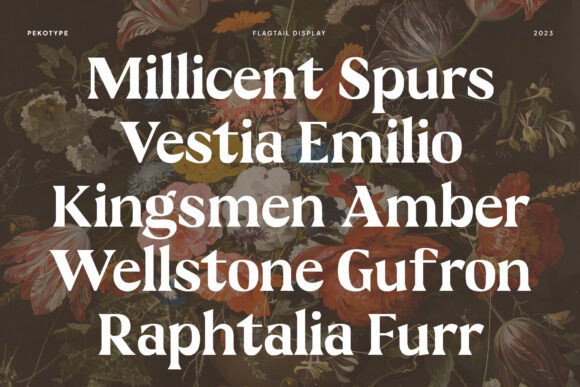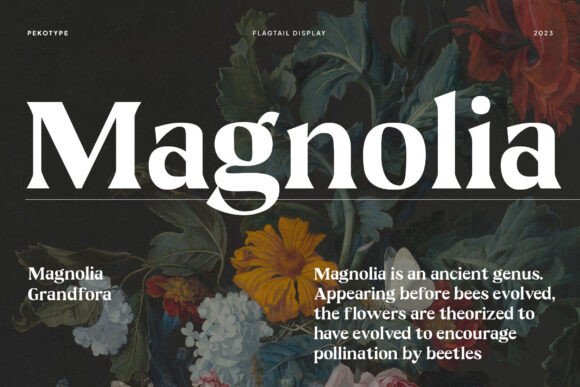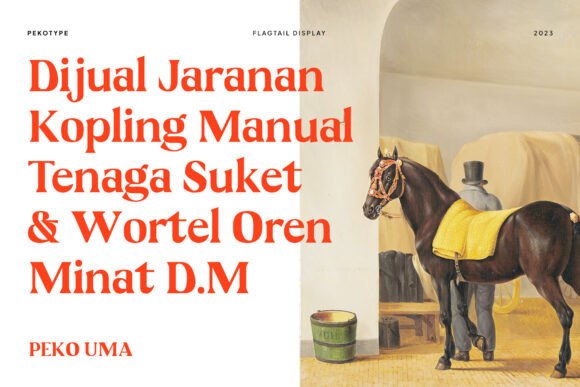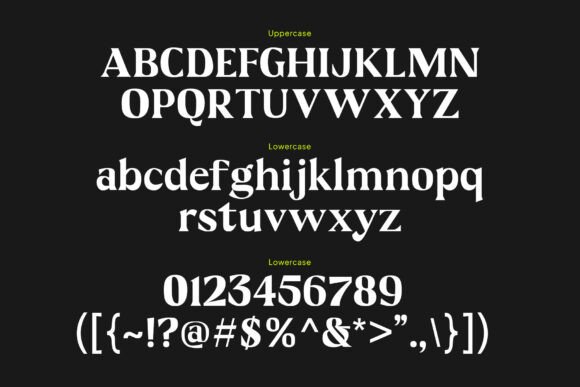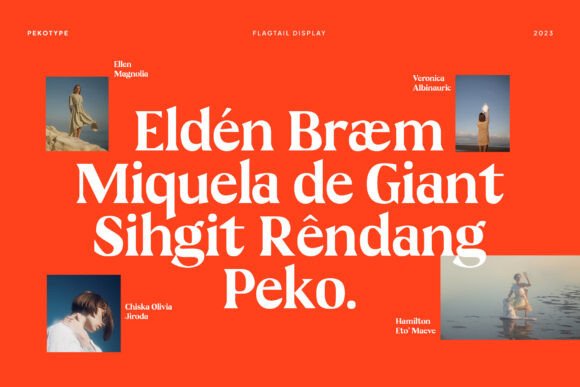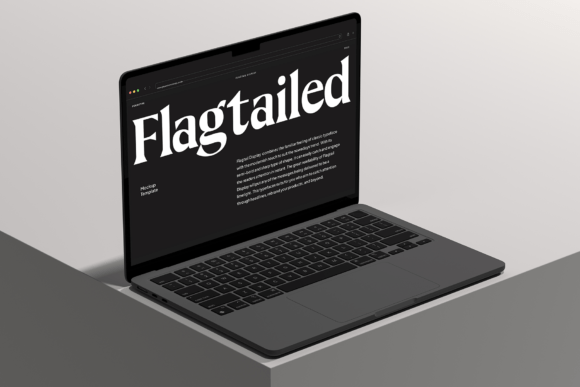
Introduction to Flagtail Display Font
FLAGTAIL DISPLAY combines the familiar feeling of classic typeface with the modern touch to suit the modern trend.
With its semi-bold and sharp type of shape, it can easily catch and engage the readerโs attention in an instant The excellent readability of Flagtail Display will put any of the messages being delivered in the limelight.
Key Features of Flagtail Display Font